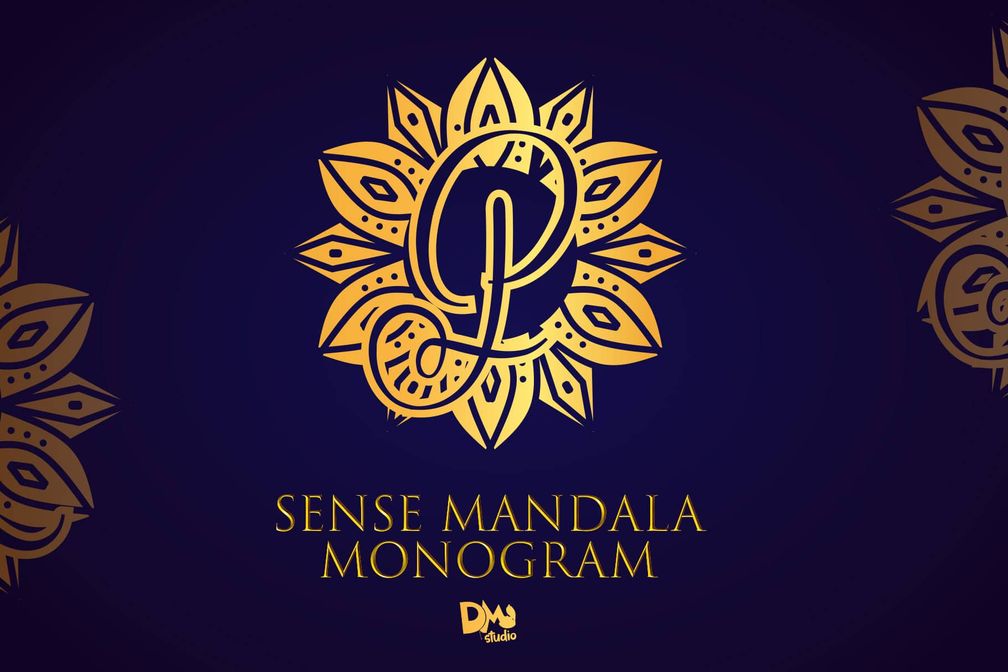
Sense Mandala Monogram
Sense Mandala Monogram – Calm & Centered Monogram Font
Sense Mandala Monogram is a delicately crafted font that blends tranquil mandala artistry with graceful letterforms. Designed to evoke inner peace and balance, this font is perfect for wellness branding, spiritual products, yoga studios, wedding stationery, and holistic design projects. Its detailed yet calming appearance brings a mindful elegance to every composition.
• Serene Mandala Motifs: Each letter is adorned with symmetrical, meditative mandala patterns.
• Ideal for Mindful Projects: Perfect for self-care journals, spa logos, wellness apps, and boho wedding invites.
• Tranquil & Refined Aesthetic: Combines soft linework with detailed ornamentation for a composed, elegant tone.